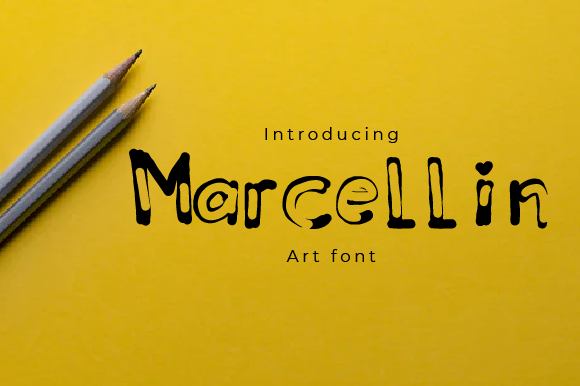
Introduction to Marcellin Font
Marcellin is an incredibly unique, yet simple display font.
Add it to your creative ideas and notice how it makes them stand out .
Key Features of Marcellin Font